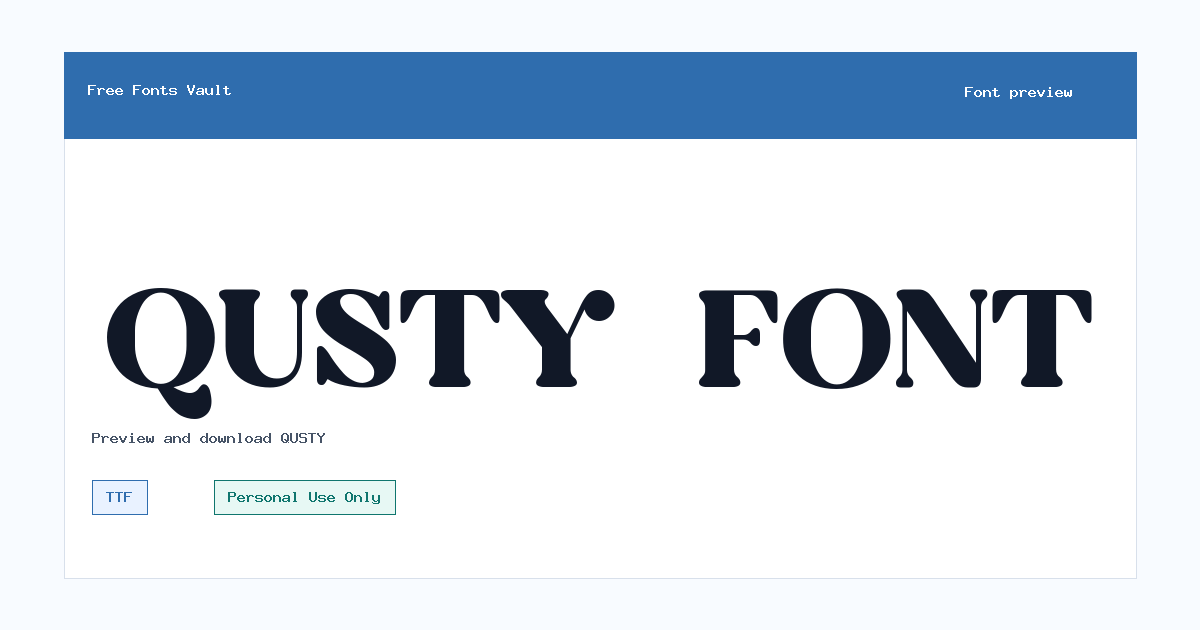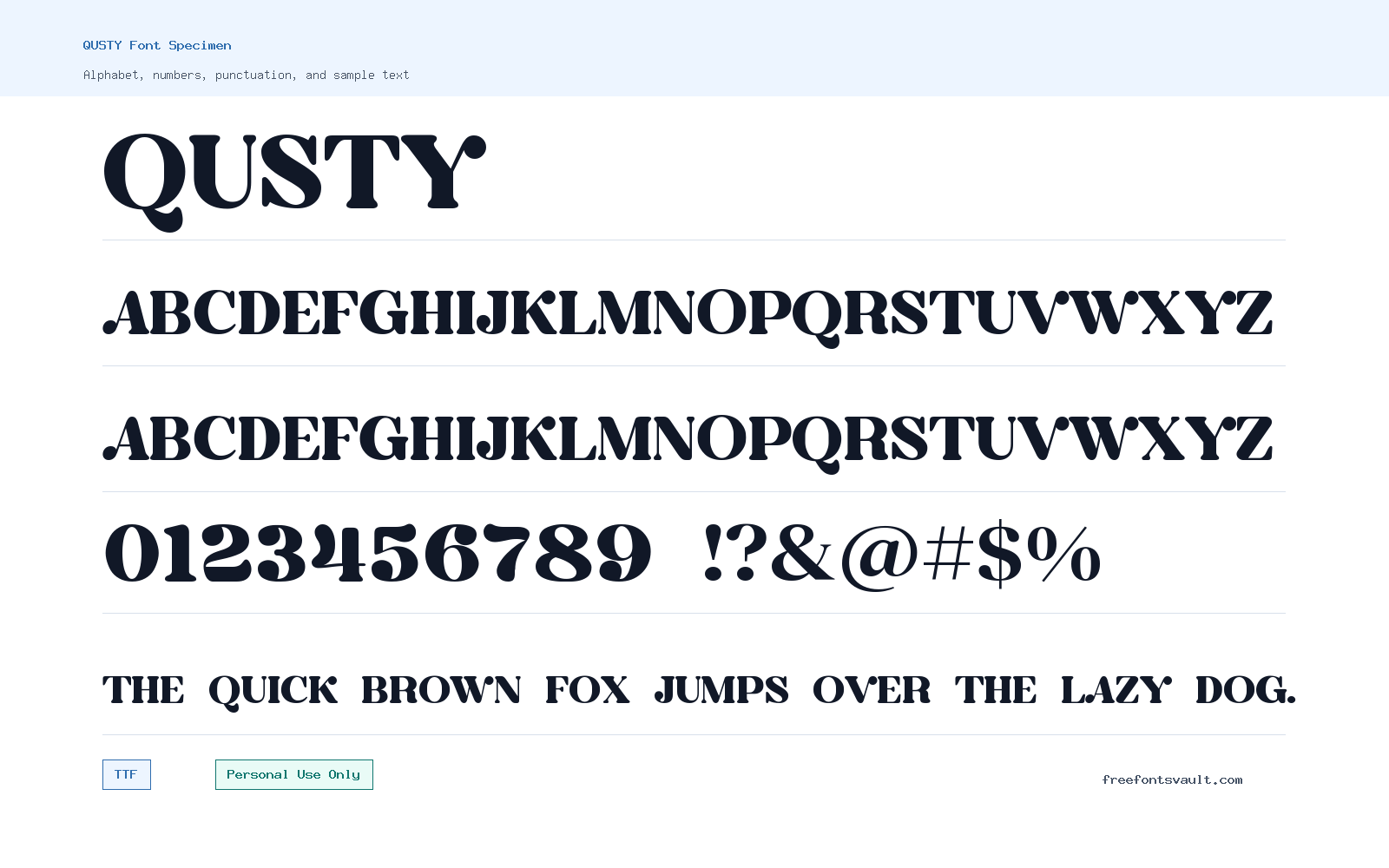
QUSTY
QUSTY is a serif font family with a Regular TTF style for personal design work, previews, and non-commercial layouts. Its name is presented in all caps, and the available file is suited for visitors who want to test a display serif in headings, short text, posters, and concept artwork before deciding whether it fits a project.
QUSTY is best approached as a serif display choice rather than a full text family. With one regular-weight TTF file, it gives you a straightforward way to try the typeface in preview text, mockups, social graphics, title treatments, and personal branding experiments. Because only the Regular style is available, the font is easier to manage but less flexible than a family with bold, italic, or multiple weights. That makes careful sizing important. Try it at headline sizes first, then test smaller captions only if the shapes remain clear.
For design work, QUSTY can be useful when you need a serif voice for short, focused text. It may work for poster titles, mood boards, invitations, personal logo concepts, book-cover drafts, web hero mockups, quote graphics, and editorial-style headings. Keep the wording short so the font has space to show its character. If you are building a logo or client-facing identity, treat the download as a testing file unless you have permission for commercial use. The license states Personal Use Only, so commercial projects, paid branding, merchandise, advertising, monetized websites, and client work should not use it without a suitable license from the rights holder.
When previewing QUSTY, test the exact words you plan to use. Serif display fonts can look very different depending on letter combinations, spacing, and capitalization. Check uppercase words, lowercase phrases, numbers, punctuation, and common brand-name pairs. If the font is being used for a poster or web mockup, compare it at several sizes and against the background color you plan to use. A font that looks polished in a large title can become harder to read in small navigation labels or long paragraphs.
Pairing QUSTY with another typeface should be simple. Use it as the main accent font, then choose a clean sans serif or a quiet text serif for body copy. Avoid pairing it with another decorative font, especially in the same headline area, because competing details can make the layout feel crowded. For web mockups, use QUSTY in the hero title or section heading, then switch to a more neutral font for paragraphs, buttons, menus, and form labels. This keeps the design readable while still giving the page a distinct title style.
- Serif font style suited to short headings, title treatments, and personal design mockups.
- Works best when used as an accent face rather than for long paragraphs.
- Useful for checking poster titles, personal logo concepts, web hero mockups, and editorial-style layouts.
- Personal poster designs and title layouts
- Non-commercial logo concept sketches
- Invitation drafts and mood boards
- Editorial-style heading mockups
- Social graphics for personal projects
- Book-cover or magazine-cover concept previews
- Website hero mockups where the font is used in short text
Is QUSTY good for body text?
It is better to try QUSTY in short titles, headings, and display settings first. For long paragraphs, pair it with a more neutral, highly readable text font.